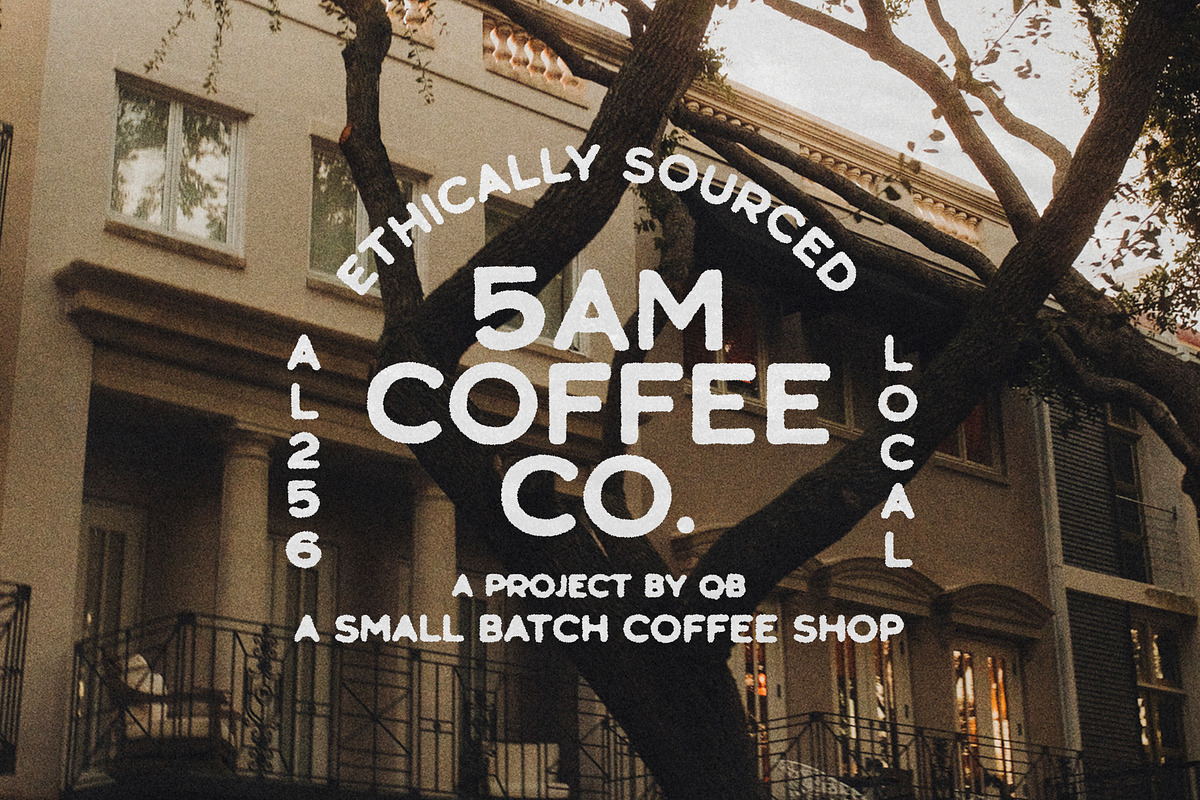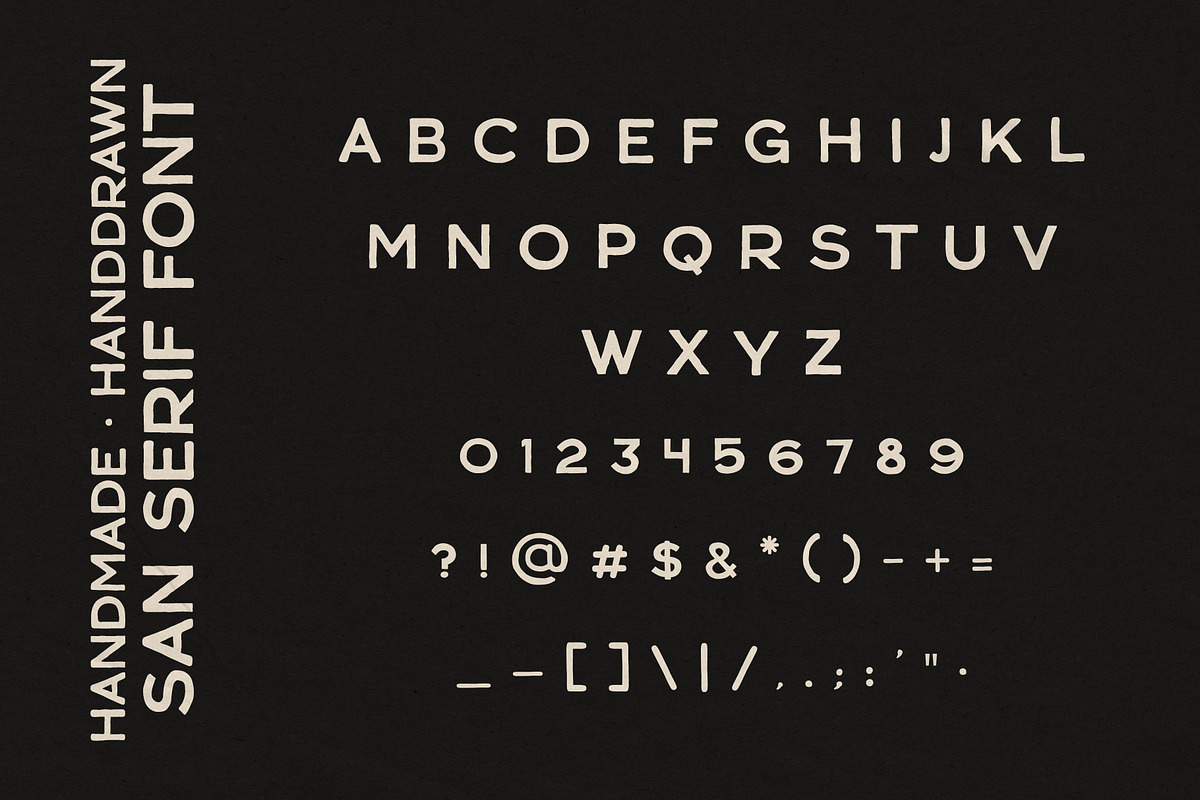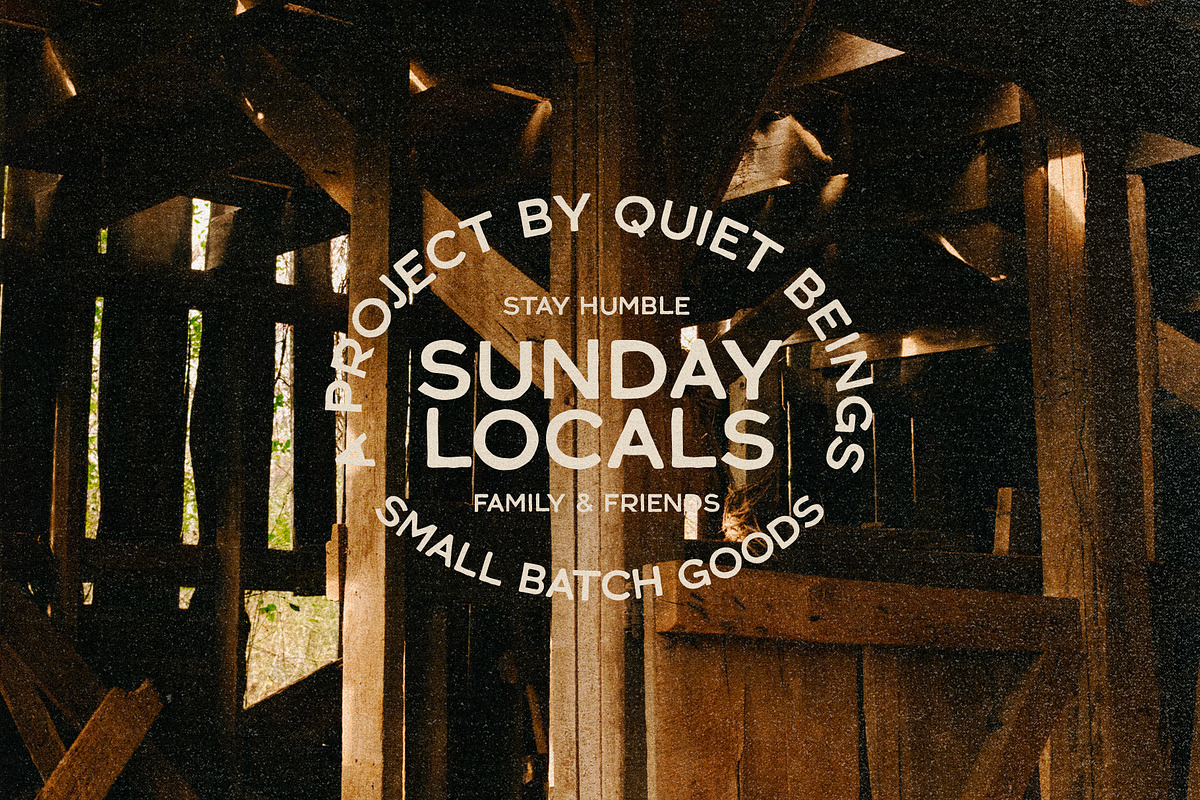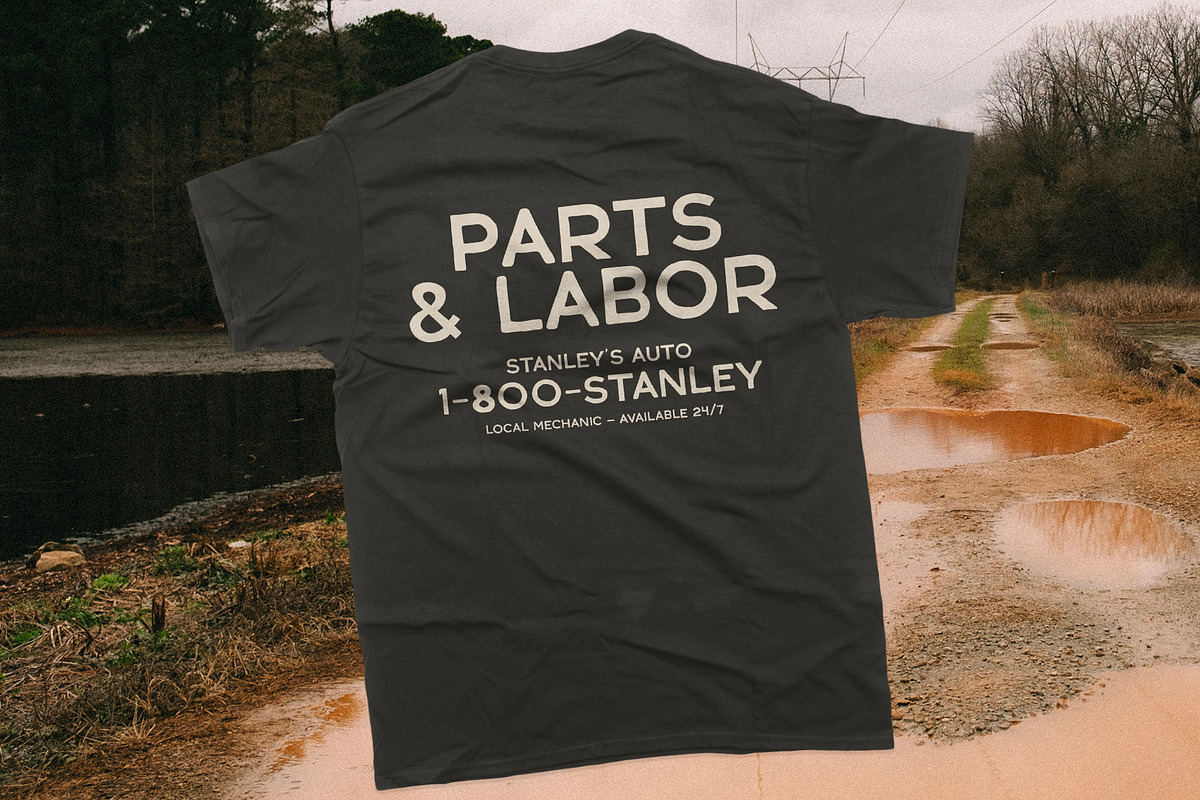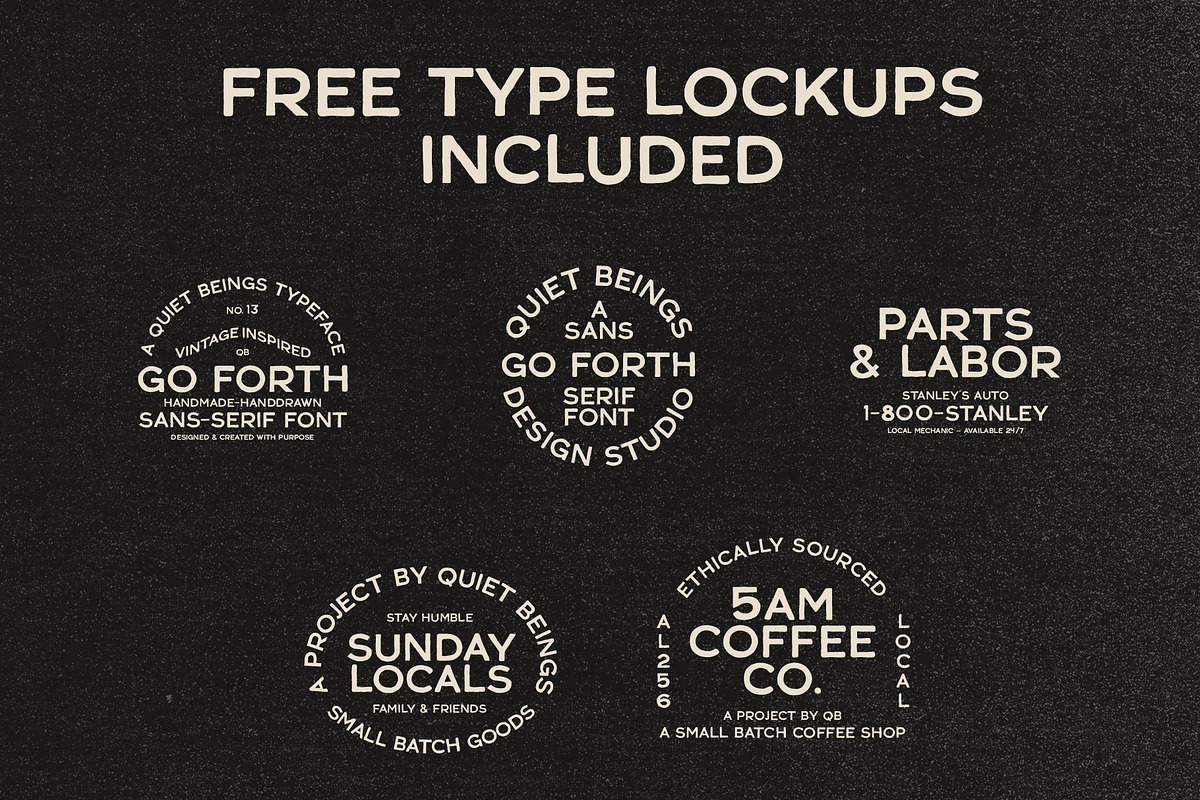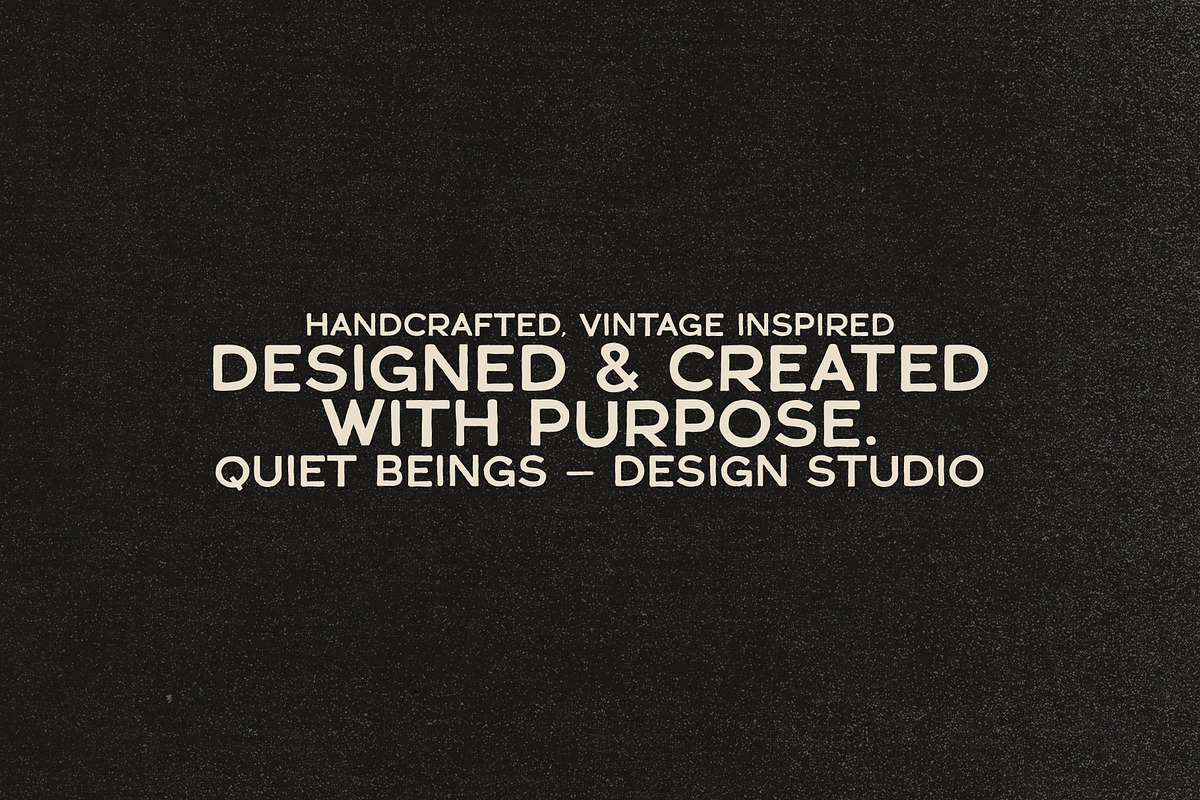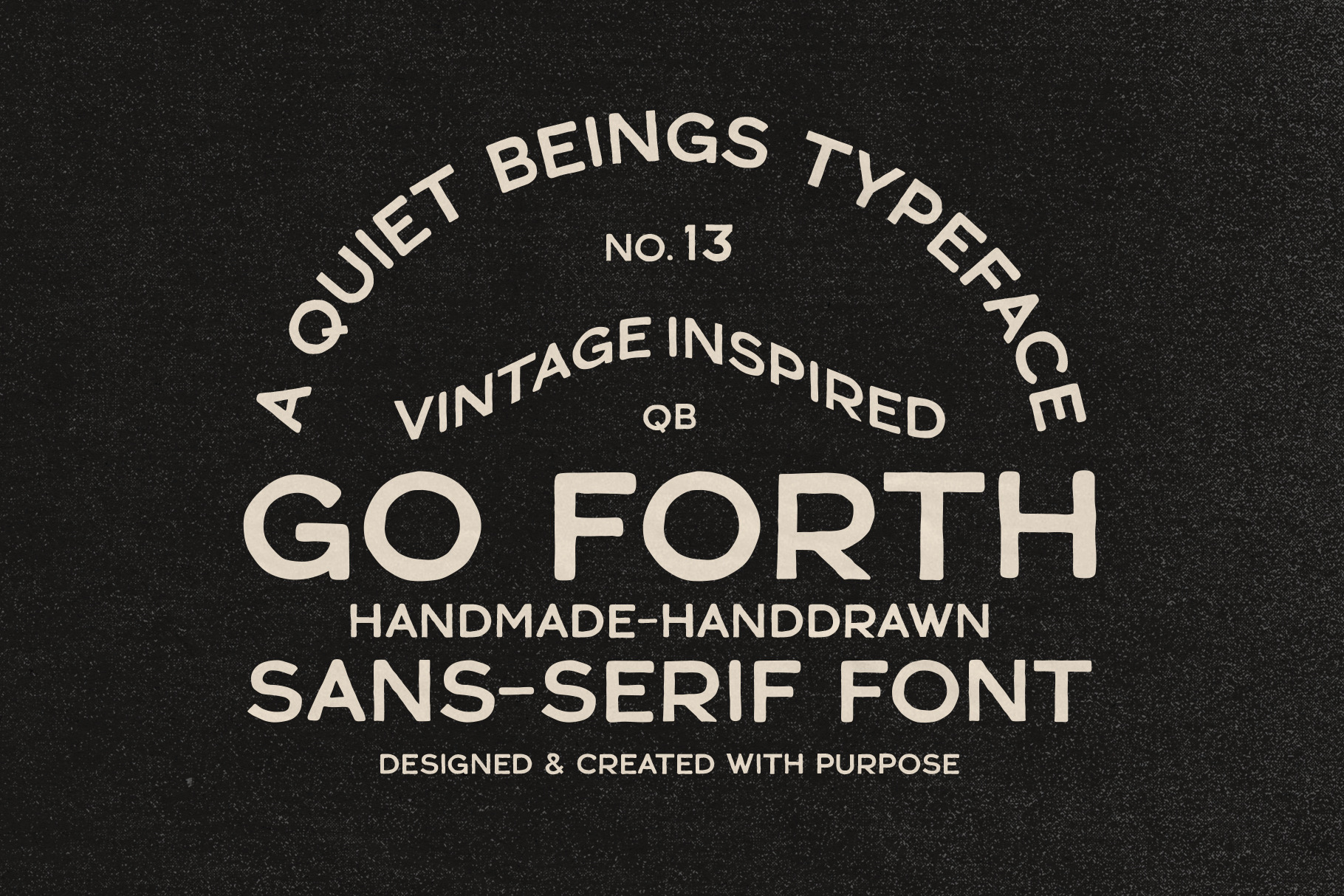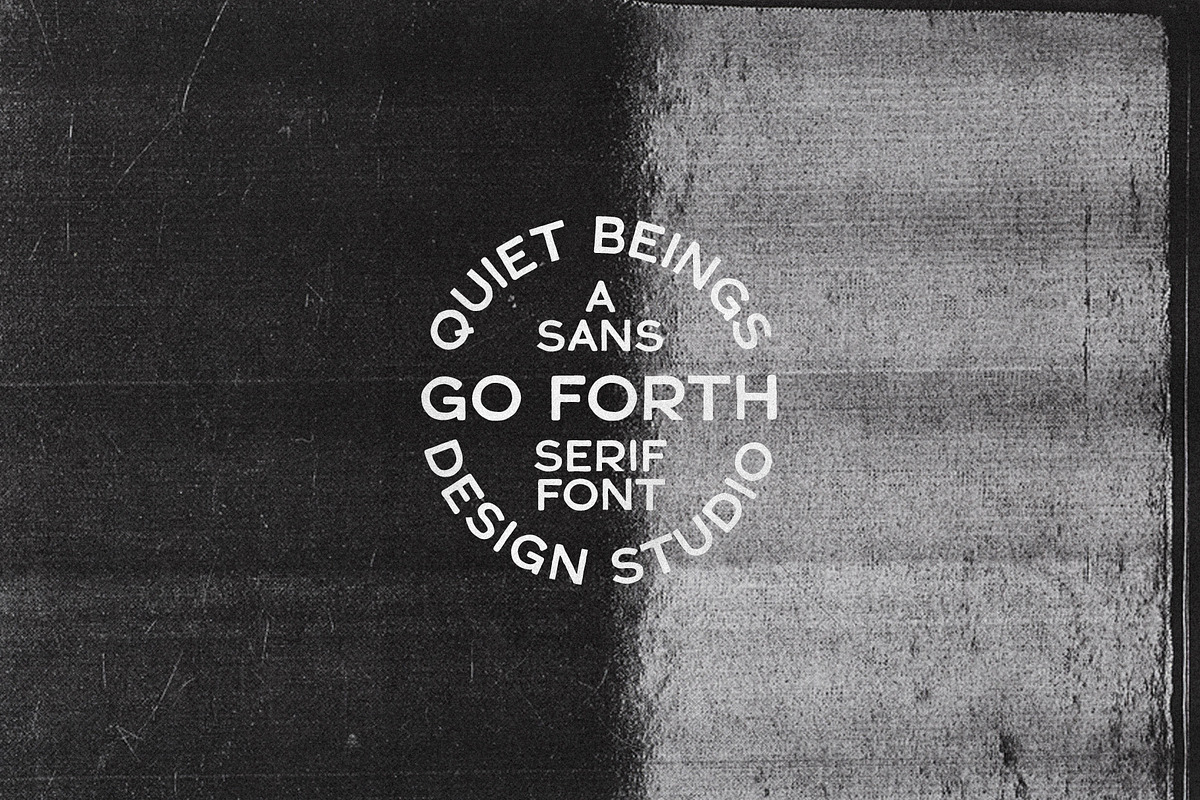
Go Forth - Vintage Sans-Serif Font
Go Forth is a vintage inspired, handdrawn typeface. Nothing fancy, nothing perfect. This typeface was inspired by the simplicity in early sans-serif fonts. Perfect for visual identities, packaging, apparel, social graphics, and so much more.
Go Forth is an all caps font complete with symbols.